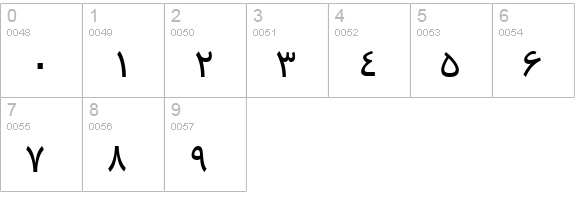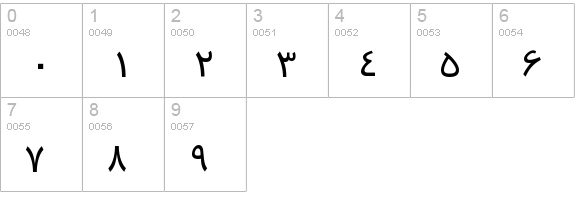
B Traffic font is a modern and stylish typeface designed for all your traffic-related projects. With its clean lines and sleek look, this font is perfect for signage, posters, banners, and more. Whether you're working on a traffic management plan or creating eye-catching advertisements, B Traffic font will help you stand out from the crowd. Best of all, B Traffic font is completely free to download at FontsMarket.com. You can easily add this versatile font to your collection without spending a dime. Don't miss out on this fantastic opportunity to enhance your designs with B Traffic font today!